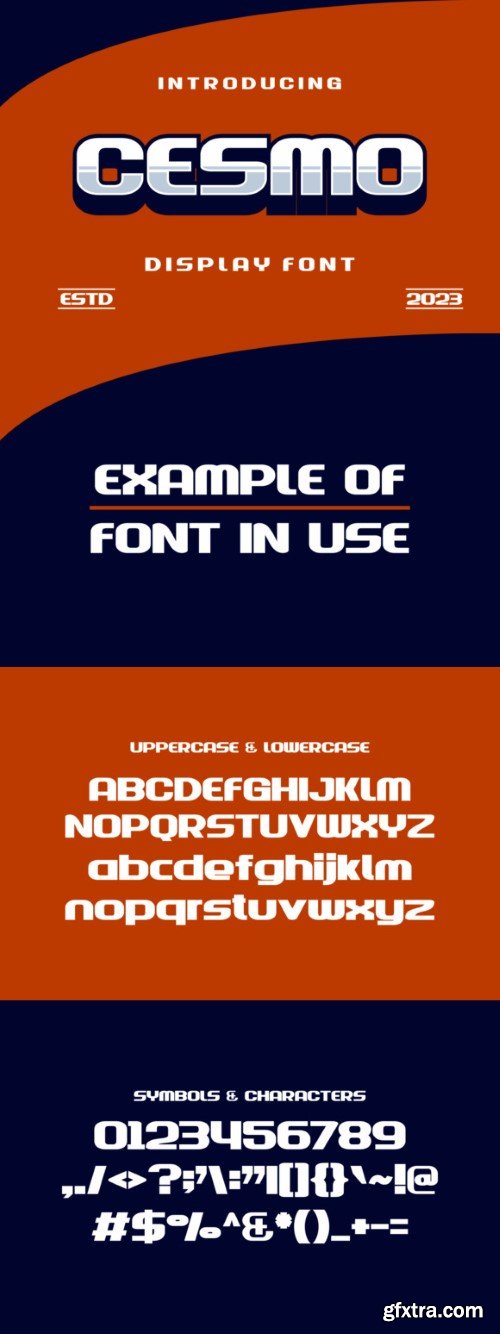
塞斯莫字体
**Cesmo**
Perfectly suited on print/screen. it’s perfect for Branding, name card, poster, logo, magazine,
cover, banner, t-shirt and headers, or even large-scale artwork.